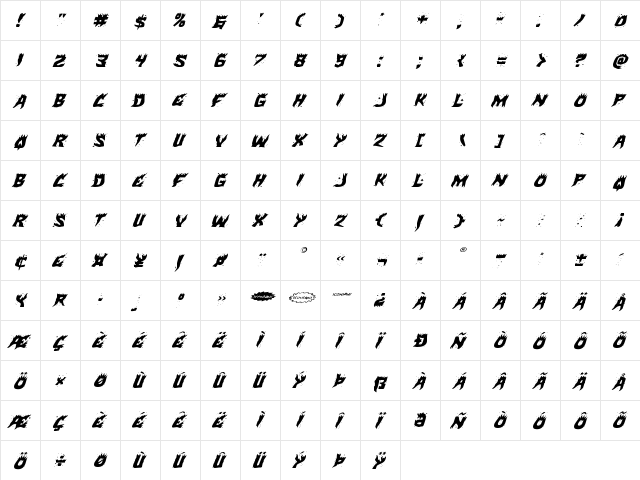
Hot Kiss Expanded Italic Expanded Italic
Design Context for Hot Kiss Expanded Italic Typeface
Hot Kiss Expanded Italic is a composed and adaptable typeface that performs quietly and consistently across a wide range of design contexts. Its italic angle brings a sense of urgency and motion to the letterforms.
Pro Tip: Use Hot Kiss Expanded Italic for emphasis, pull quotes, and subheadings where its slanted energy can add rhythm to the layout.